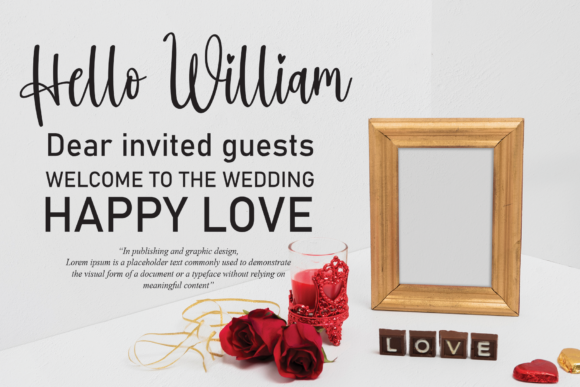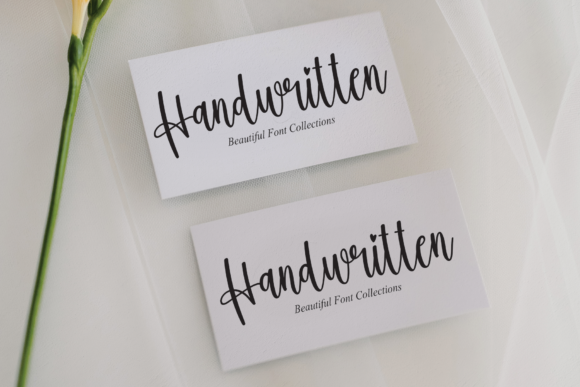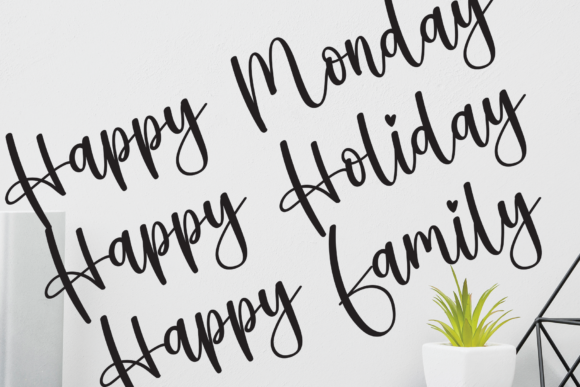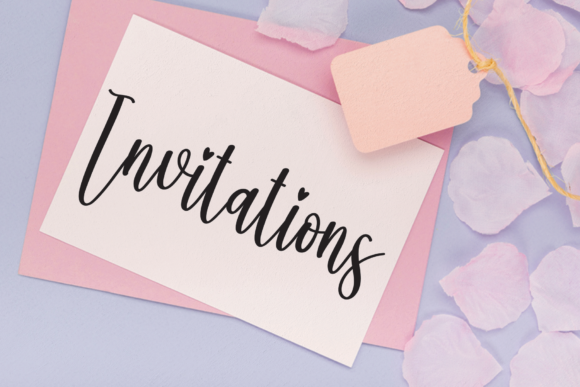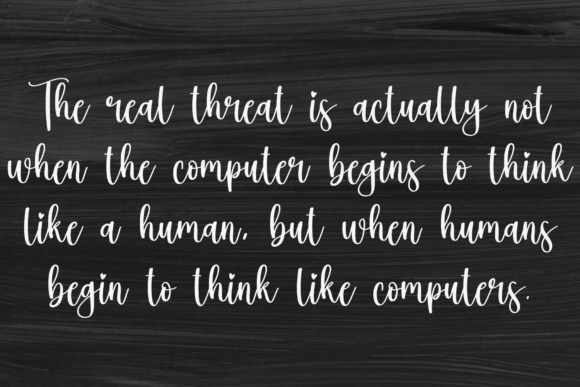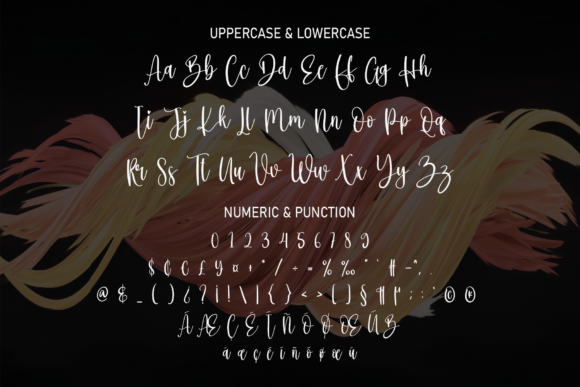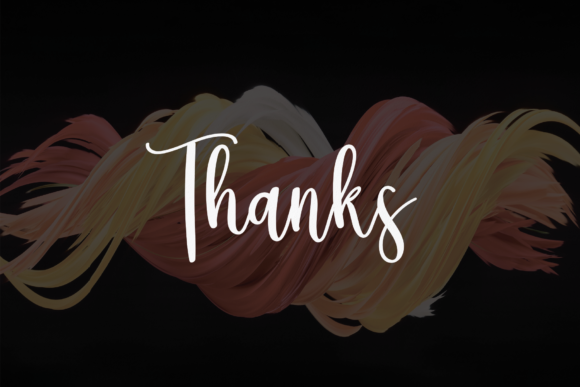
Hippie Font
Hippie is a font that embodies the essence of carefree spirit and timeless style. With its delicate and fashionable script, Hippie effortlessly brings a touch of bohemian elegance to a wide range of design projects.
Imagine Hippie gracing the logo of a modern and unconventional fashion brand. Its flowing and intricate script captures the essence of individuality and creativity, reflecting the brand’s unique approach to style. Whether it’s clothing, accessories, or lifestyle products, Hippie’s delicate script adds an element of artistic flair that resonates with the brand’s target audience.
For t-shirt printing, Hippie becomes a statement font that conveys a sense of free-spiritedness. Whether adorning shirts for music festivals, outdoor events, or casual wear, this font adds a touch of boho-chic to the design. Its delicate and fashionable script style transforms the t-shirt into a canvas for self-expression and personal style.
In the realm of creative products, Hippie infuses a sense of artistic elegance into everyday items. Picture the font on product packaging for handmade crafts, artisanal goods, or eco-friendly products. Its delicate script not only communicates quality but also appeals to individuals who appreciate aesthetics and sustainable living.
For branding projects, Hippie becomes a defining element that captures the brand’s essence. Whether it’s a beauty line, a wellness brand, or a creative agency, Hippie’s delicate and fashionable script adds a touch of authenticity and creativity to various touchpoints. The font’s versatility ensures that it seamlessly aligns with the brand’s values and vision.
Hippie’s ability to evoke a sense of carefree elegance makes it suitable for a variety of contexts. Its delicate and fashionable script style brings a touch of artistic charm and bohemian chic to any design it graces. The font’s flowing lines and intricate characters create a visual identity that is both captivating and effortlessly stylish.
In essence, Hippie is not just a font; it’s a design asset that infuses your creations with a sense of bohemian allure and timeless beauty. Its delicate and fashionable script style adds an element of artistic expression, ensuring that your designs stand out and resonate with your intended audience.
Whether you’re working on a logo, t-shirt design, creative product, or branding project, let Hippie be your font of choice. Its delicate and fashionable script style will elevate your designs, bringing a touch of bohemian elegance and artistic charm to every project.